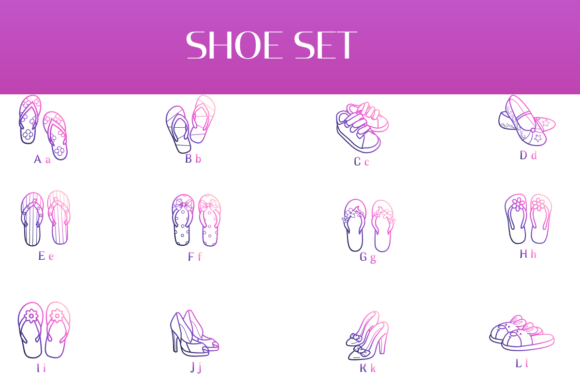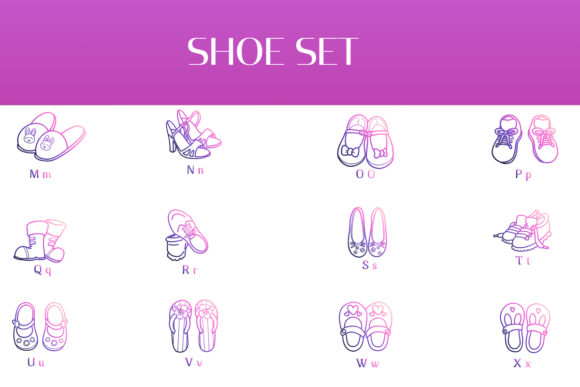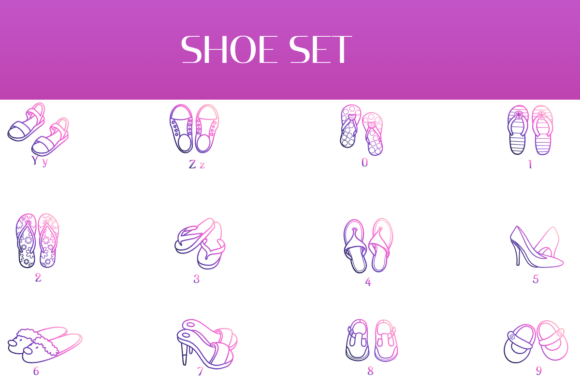
Introduction to Shoe Set Font
Have you ever been stuck in a design rut, trying to find the perfect way to express a fashion-forward idea without the hassle of creating intricate illustrations from scratch? That’s where the Shoe Set Font comes in – a game-changing design resource that’s about to revolutionize your creative workflow. With its extensive collection of charming, outline illustrations, this font makes it ridiculously easy to integrate shoe imagery into your projects.
Imagine being able to add a touch of whimsy to your custom invitations, create eye-catching social media icons, or craft unique patterns for apparel graphics – all without needing complex vector editing. The Shoe Set Font is a free download that’s perfect for designers, crafters, and anyone looking to elevate their design game with high-quality, creative assets. Its transparent background and outline design make it incredibly versatile, allowing you to fill it with color and bring your ideas to life.
Key Features of Shoe Set Font
- High-quality vector design for a transparent background, making it easy to use in various creative projects.
- Comprehensive font set with a range of shoe designs, perfect for a design resource in fashion, sports, or lifestyle projects.
- Designed to be used as a standalone graphic or as part of a larger design, making it a versatile design element.
Honest Review: Shoe Set Font
As a designer, I’m always on the lookout for high-quality design resources that can elevate my creative projects. Recently, I stumbled upon the Shoe Set Font, and I’m excited to share my honest review with you.
What works well: ✨ The font is highly versatile and comes with a range of styles, making it perfect for various design projects. The transparent background feature is also a huge plus, allowing me to easily blend the font with any background image or color.
- Transparent background for seamless integration
Limitations: ⚠️ While the font is impressive, I found it to be slightly limited in terms of customization options. Additionally, the font may not be suitable for very large-scale designs, as it can become pixelated.
Overall impression: I’m thoroughly impressed with the Shoe Set Font, and I highly recommend it to designers looking for a high-quality design resource. While it may have some limitations, the font’s versatility and transparent background feature make it a valuable addition to any design project.
Tips for Getting the Most Out of Shoe Set Font
Use the font in combination with other design elements, such as images and shapes, to create a high-quality design. Experiment with different font sizes and styles to achieve the desired effect. The Shoe Set Font is a free download, making it a valuable resource for any design project.
Does Shoe Set Font have a transparent background for seamless integration?